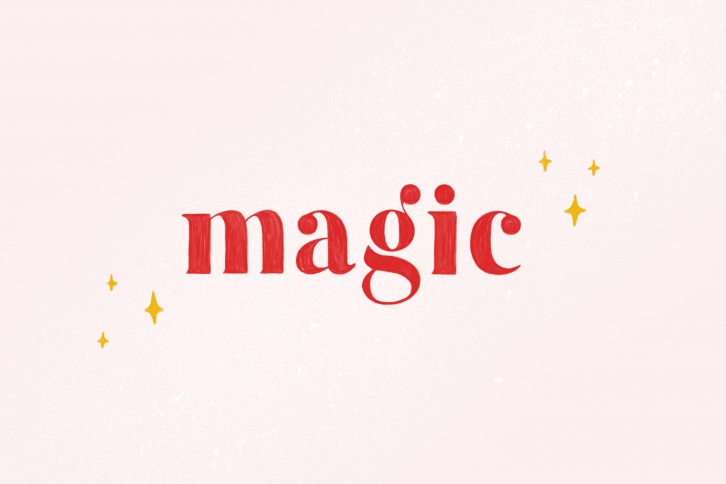
Magic - Colour SVG Font + Extra Doodles!
All the letters are raster bitmap font - each letter has been painted a dozen of times.
Language support: Currently only English is supported.